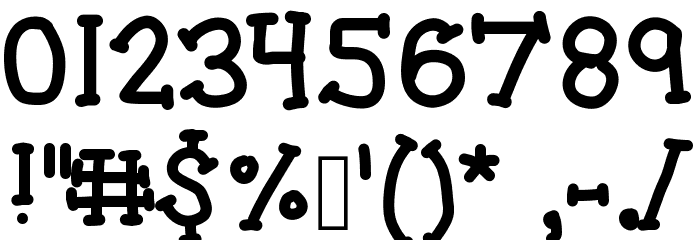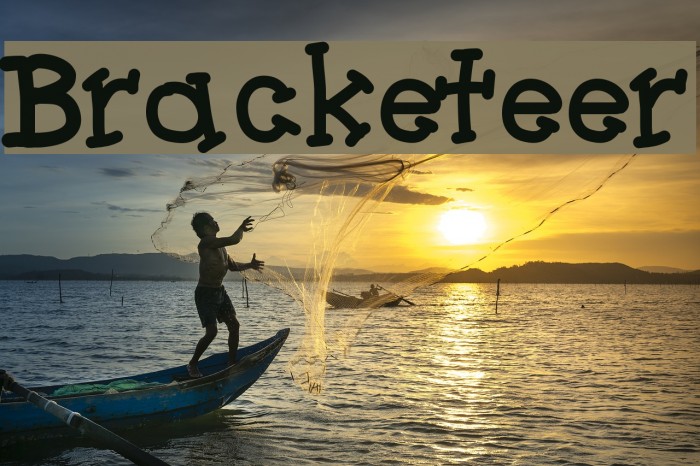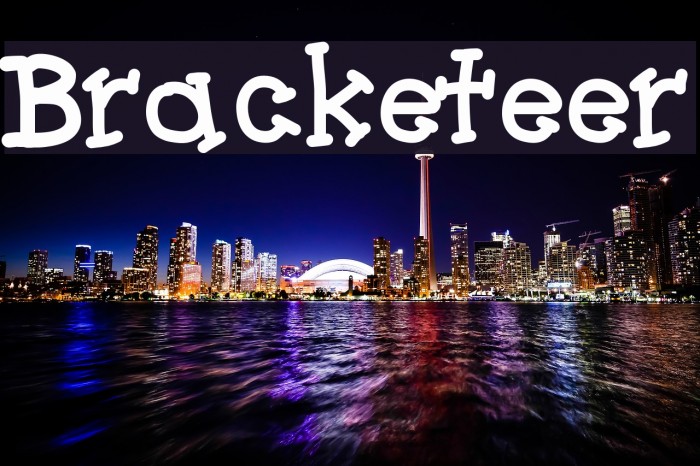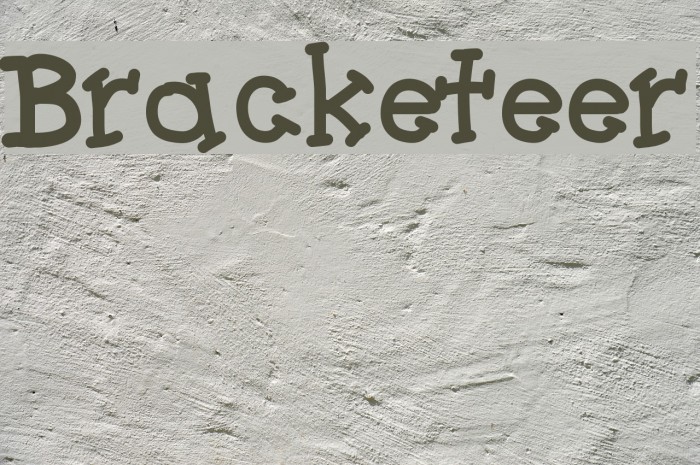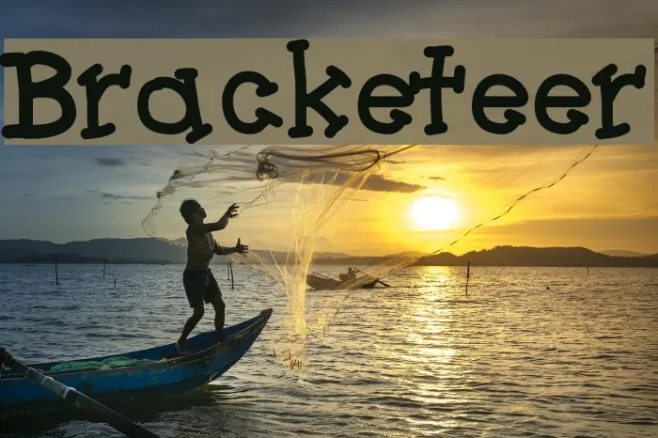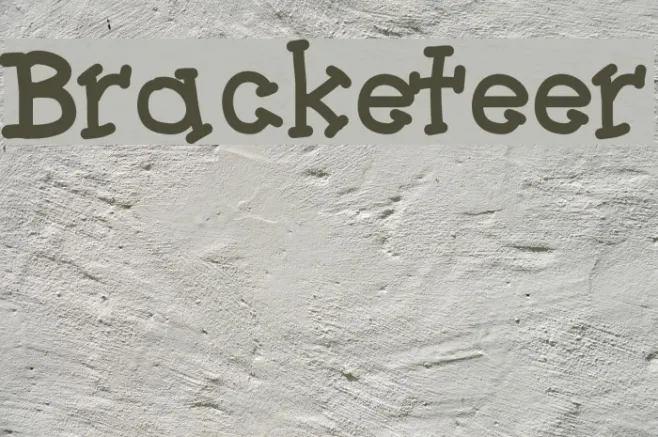
Bracketeer Font
This font features a playful and whimsical design, characterized by its bold, rounded letterforms and exaggerated serifs. Each character has a unique, hand-drawn quality, giving it a lively and informal appearance. The uppercase letters are particularly bold, with a slightly uneven baseline that adds to the casual aesthetic. The lowercase letters maintain the same playful style, with consistent stroke widths and rounded edges. Numbers and special characters follow the same design principles, ensuring a cohesive look across all glyphs. This font is ideal for projects that require a fun and approachable feel.
A playful, bold font with rounded, hand-drawn letterforms and exaggerated serifs.
- Proposed Projects: Ideal for children's books, playful branding, party invitations, and creative posters.
- Overall Style: Playful, Whimsical